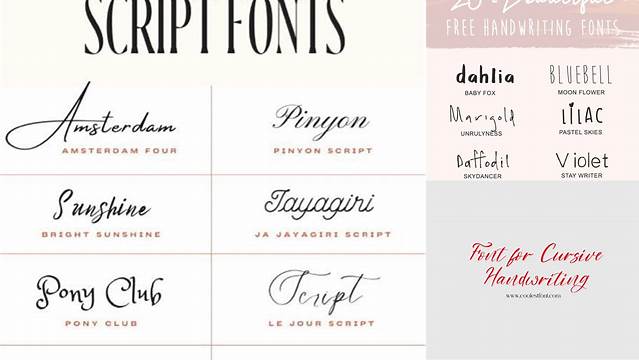
Top Cursive Fonts For Handwriting Practice: A Comprehensive Guide
Hey guys! If you're diving into the wonderful world of cursive writing, or maybe you're a parent helping your kids learn, you've landed in the right place. Choosing the best cursive fonts for handwriting practice can seriously impact how well you learn and how much you enjoy the process. It's like picking the right tools for any job; the right font makes everything easier and more fun. In this guide, we'll explore the best cursive fonts out there, considering everything from readability to style. Get ready to find your perfect penmanship partner! Let's get started.
Understanding the Importance of Font Choice for Cursive Practice
Alright, let's chat about why the best cursive fonts matter so much. Think about it: you're trying to learn a new skill, and your brain is already working hard to connect the letters and form words. If the font is clunky, hard to read, or just plain confusing, you're adding extra layers of difficulty. That's the last thing you need! The best cursive fonts should be like a friendly teacher, guiding you smoothly through the shapes and connections. A good font will help you learn the correct letter formations, flow naturally from one letter to the next, and make the whole experience enjoyable. Imagine trying to learn to ride a bike with a wobbly, uncomfortable seat – not fun, right? It's the same with fonts. The right choice can make all the difference between struggling and soaring. Moreover, the best cursive fonts can influence your writing speed and neatness. A well-designed font is like a well-paved road; it makes it easier to get where you're going. A poor font, on the other hand, is like a bumpy dirt track, slowing you down and making the journey much harder. So, choosing the right font is more than just aesthetics; it's about setting yourself up for success from the very beginning. It’s about creating a positive learning environment that encourages you to practice and improve. Remember, learning should be fun, so why not start with a font that makes you smile?
Key Features to Look for in the Ideal Cursive Font
So, what exactly makes the best cursive fonts stand out? Let's break down some essential features. First and foremost, readability is king. The letters need to be clear and easy to distinguish from one another. Look for fonts where the 'a' doesn't look like a 'u' and the 'n' doesn't get confused with an 'h'. Next up is flow. Cursive is all about the connections, so the best cursive fonts will have smooth, natural joins between letters. This helps create a fluid writing experience. Avoid fonts where the connections are awkward or break the flow. Think about how the letters connect – they should guide your pen. Consistency is another key aspect. The font should have a consistent style throughout. This means all the letters should follow the same design principles, making it easier to learn and practice. Inconsistent letterforms can be confusing and can make it harder to develop muscle memory. Then, consider the style. Do you prefer a classic, elegant look or something more modern and playful? The best cursive fonts come in various styles, so choose one that resonates with you. Also, make sure the font is available in different weights (like light, regular, and bold). This flexibility is useful for practice, as you can experiment with different line thicknesses. Finally, check for letter variations. Some fonts offer alternative forms of certain letters (like different versions of the lowercase 'g' or 'k'). This can add a personal touch to your writing. The best cursive fonts will often have a good range of glyphs, allowing you to customize the appearance of your handwriting. Keeping these factors in mind will help you select a font that is not only visually appealing but also highly effective for handwriting practice. By prioritising readability, flow, consistency, and style, you'll be well on your way to mastering the art of cursive writing. Get ready to find the perfect match that aligns with your preferences and facilitates a positive learning experience!
Top 5 Cursive Fonts for Beginners: Easy to Learn and Practice
Let’s get down to the nitty-gritty and explore some awesome fonts perfect for beginners. We'll look at some best cursive fonts that are easy to learn and use, helping you build a solid foundation. First up, we have D'Nealian. This font is a favorite in many schools because it's designed to transition smoothly from print to cursive. It has clear letter shapes and a good flow. It is widely used and is considered to be among the best cursive fonts due to its simplicity. Next, consider Palmer Method. This is a classic, offering a traditional and elegant style. While it might require a bit more practice, the Palmer Method teaches fundamental cursive principles. Its uniform style makes it one of the best cursive fonts for anyone aiming for a formal look. Then, there’s Zaner-Bloser. Similar to D'Nealian, Zaner-Bloser is another popular choice in schools. It’s very clear and straightforward, making it easier to learn the basic shapes. Its simple, uncluttered design helps avoid confusion. Its widespread use makes it one of the best cursive fonts out there. Don't forget about HelloFont. This is a versatile option, providing a softer and more friendly look, which is great for younger learners. The letters are well-proportioned and easy to connect. Its gentle style makes it a great choice among the best cursive fonts. Lastly, we have Learning Curve. This is a modern, clean font perfect for beginners. It is easy to read and has a simple design that emphasizes the connections between letters. This makes it one of the best cursive fonts for those looking for a contemporary feel. These fonts are all excellent starting points. They provide the clarity and structure you need to master cursive. With these options, you are sure to find the best cursive fonts suited for your needs.
Advanced Cursive Fonts for Experienced Writers
Once you’ve got the basics down, it’s time to level up! Let’s look at some more advanced fonts that can take your cursive to the next level. Copperplate Gothic is an elegant choice that's perfect for invitations and formal documents. It boasts sophisticated letterforms and a graceful flow, making it one of the best cursive fonts for those wanting a touch of class. The intricate designs offer a more complex writing experience, perfect for experienced writers. Next, consider Bickham Script. This is a beautiful, flowing script with elaborate flourishes. Its calligraphic style requires a bit more practice, but it is truly stunning. The flourishes and varied stroke weights add a level of elegance. It's one of the best cursive fonts for those seeking a more artistic look. Then, there is Brush Script MT. A more informal option, this font mimics a brush-stroke style, offering a casual yet stylish look. This font is great for adding a personalized touch to your writing. Its casual style makes it one of the best cursive fonts for a more relaxed approach. Don't overlook Shelley Allegro. This font offers a unique blend of elegance and readability. The design emphasizes legibility while still offering a sophisticated appearance. It is one of the best cursive fonts for writers looking for something distinctive. Lastly, there’s Edwardian Script. This is a vintage-inspired font that adds a touch of nostalgia to your writing. It features distinct letter shapes and a flowing style. Its traditional elegance makes it one of the best cursive fonts for those wanting a classic feel. These advanced fonts will challenge you and help you further refine your cursive writing skills. With these, your writing will have added sophistication and style.